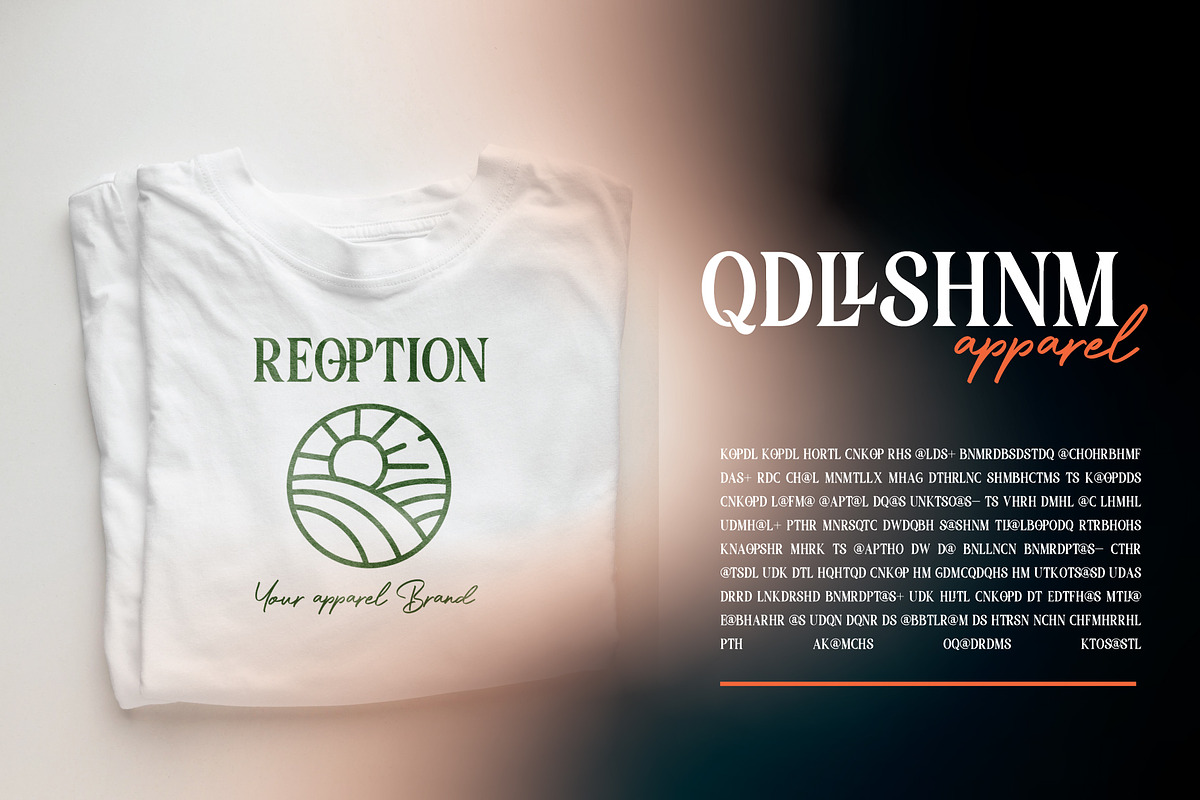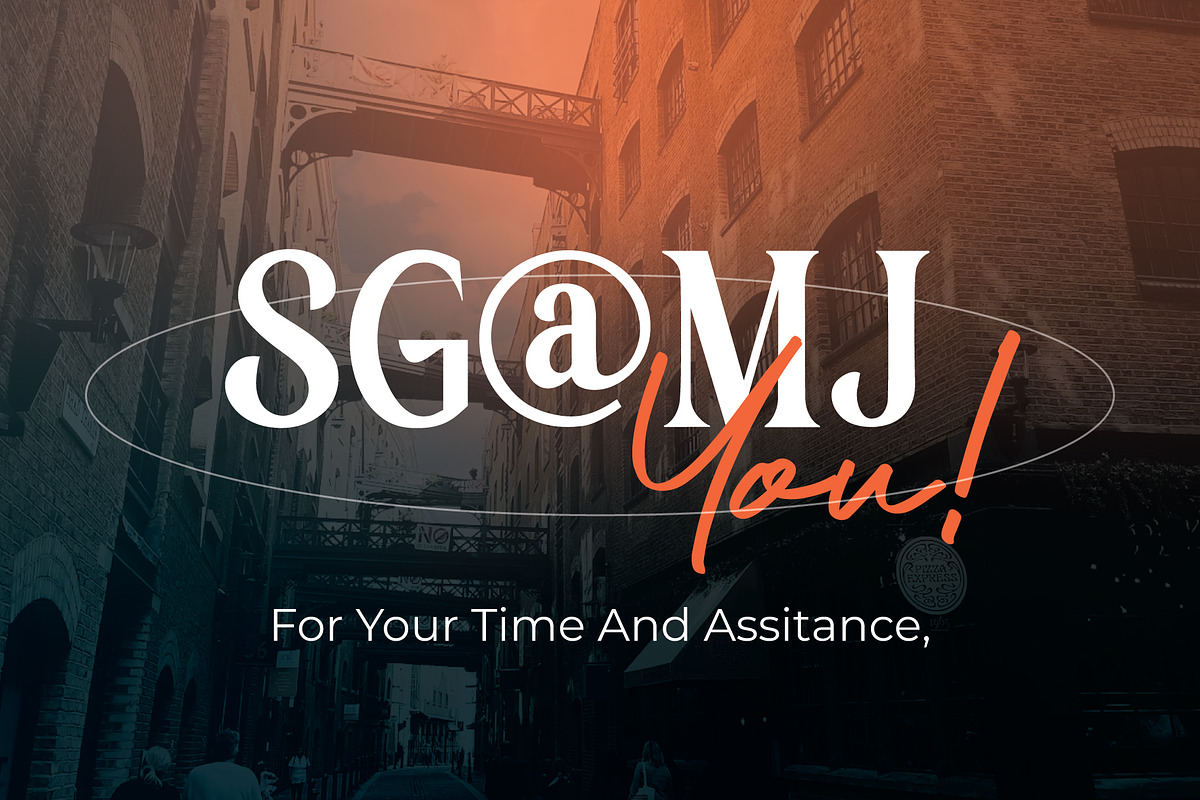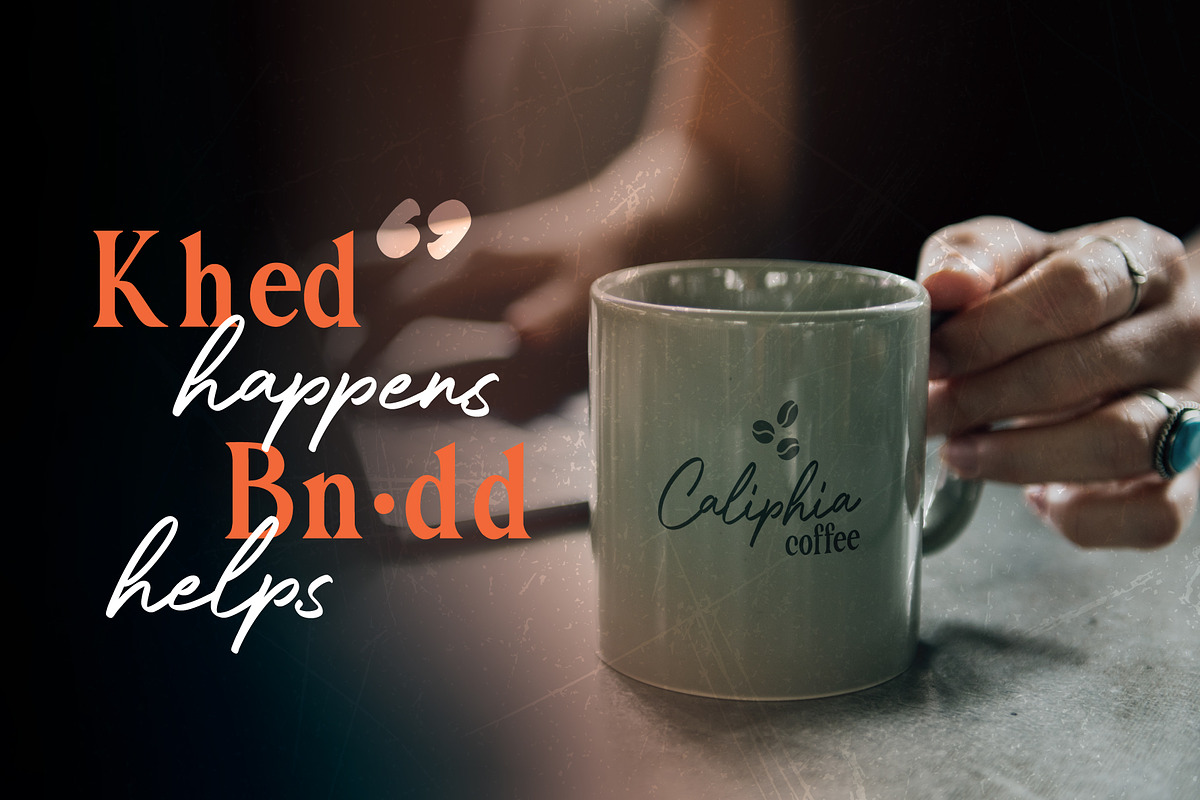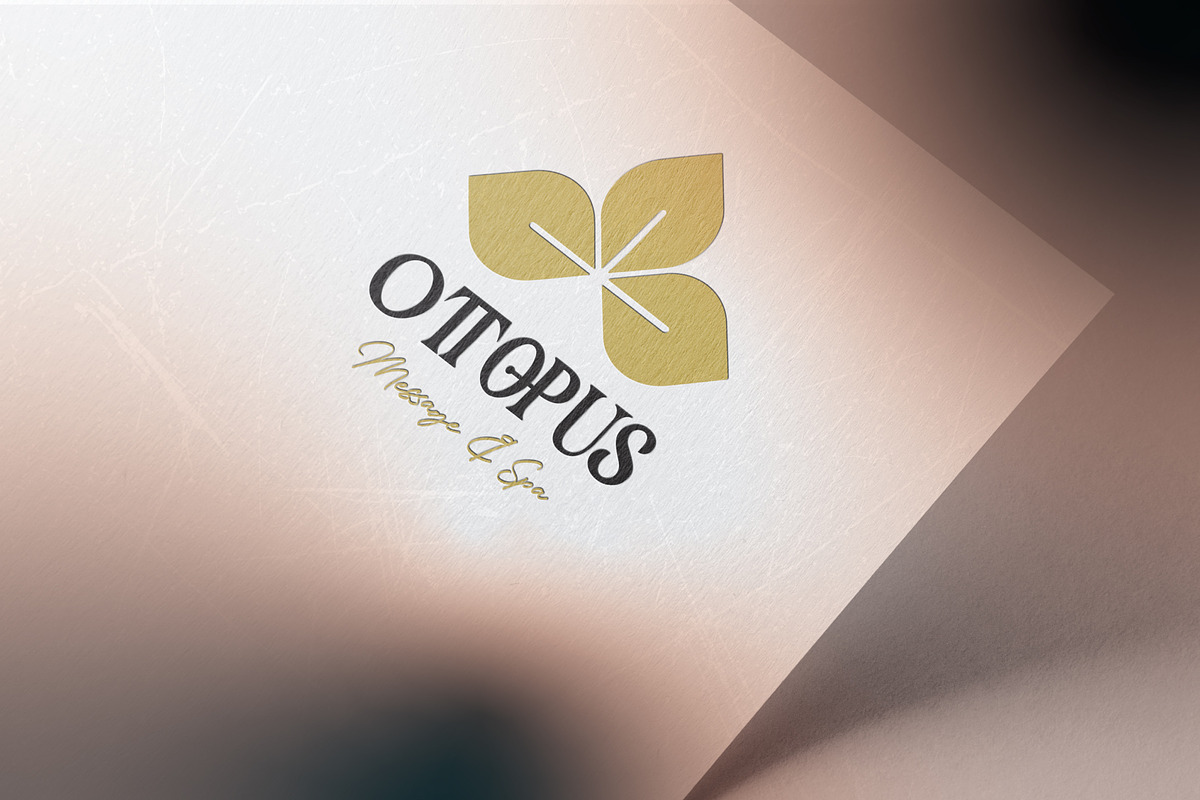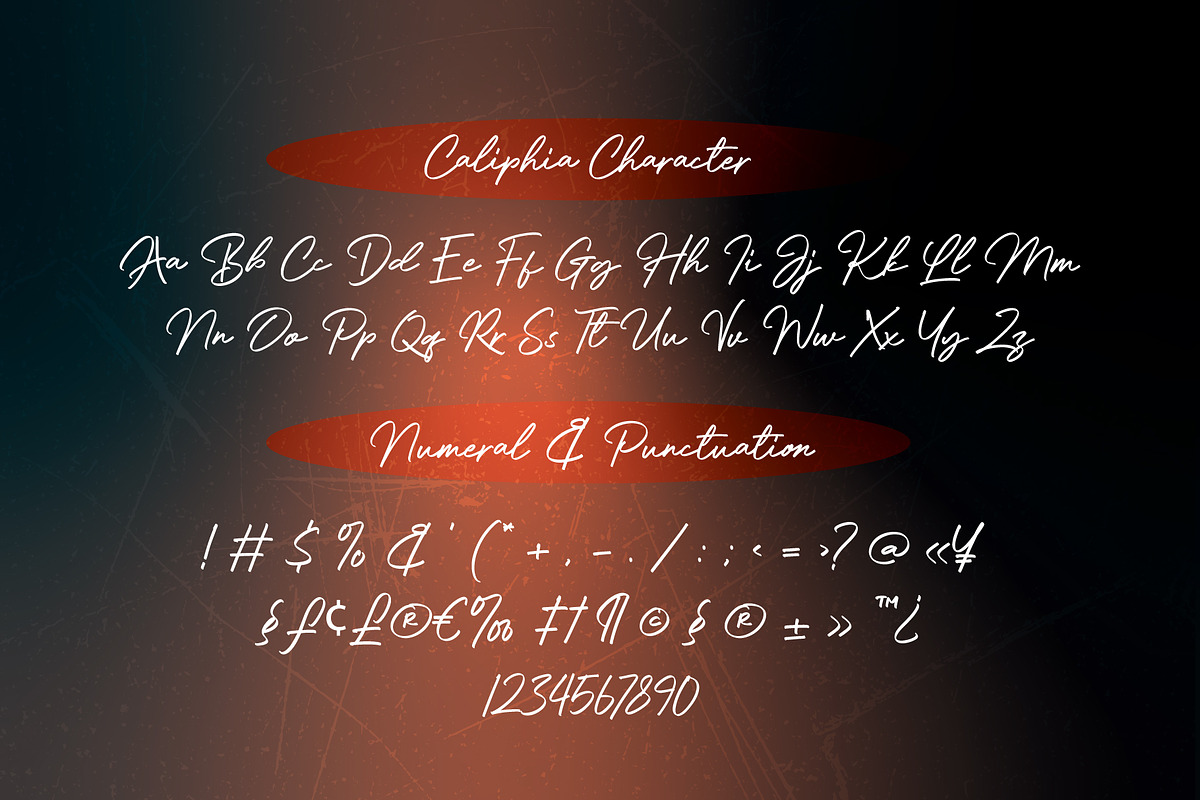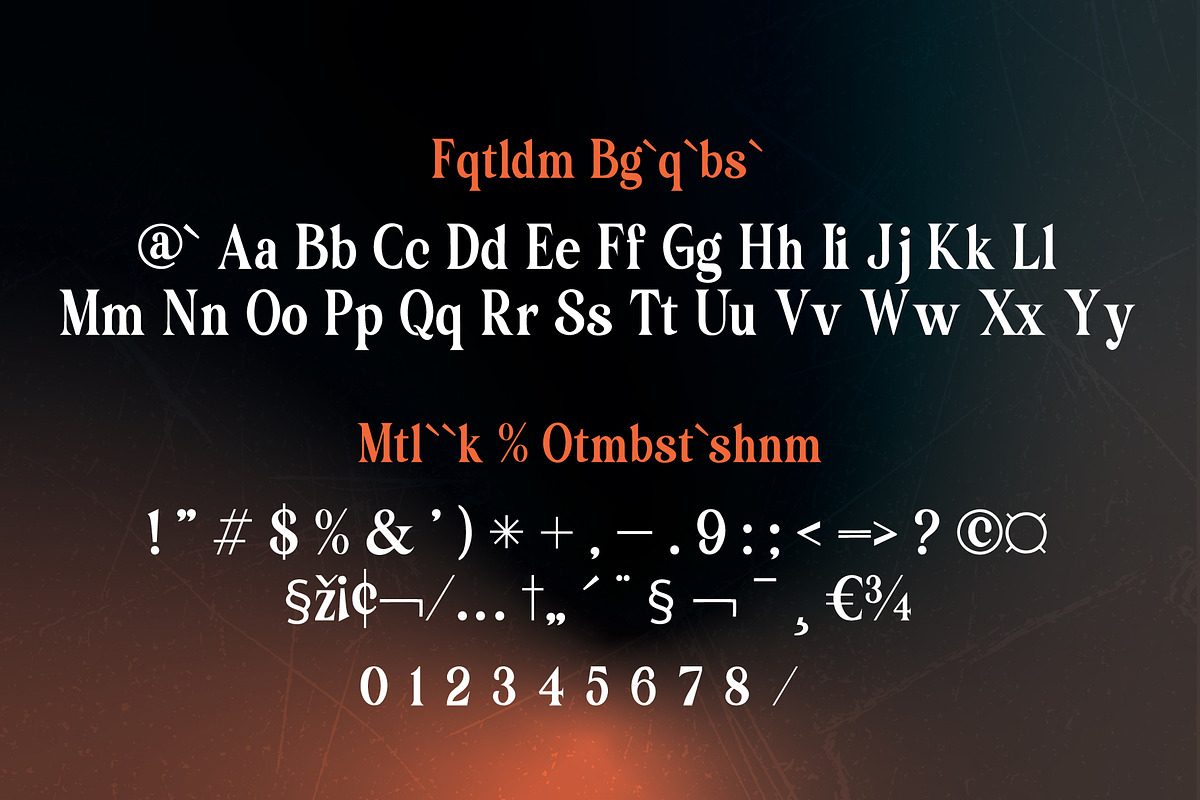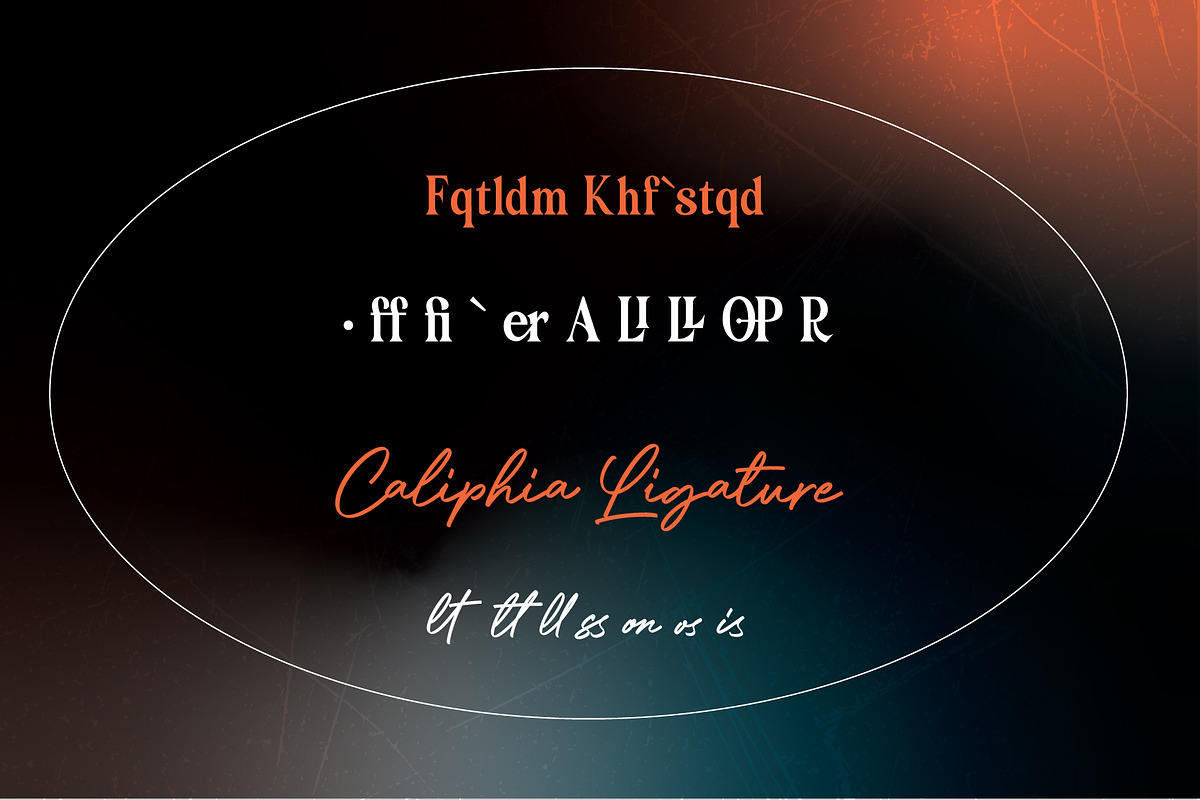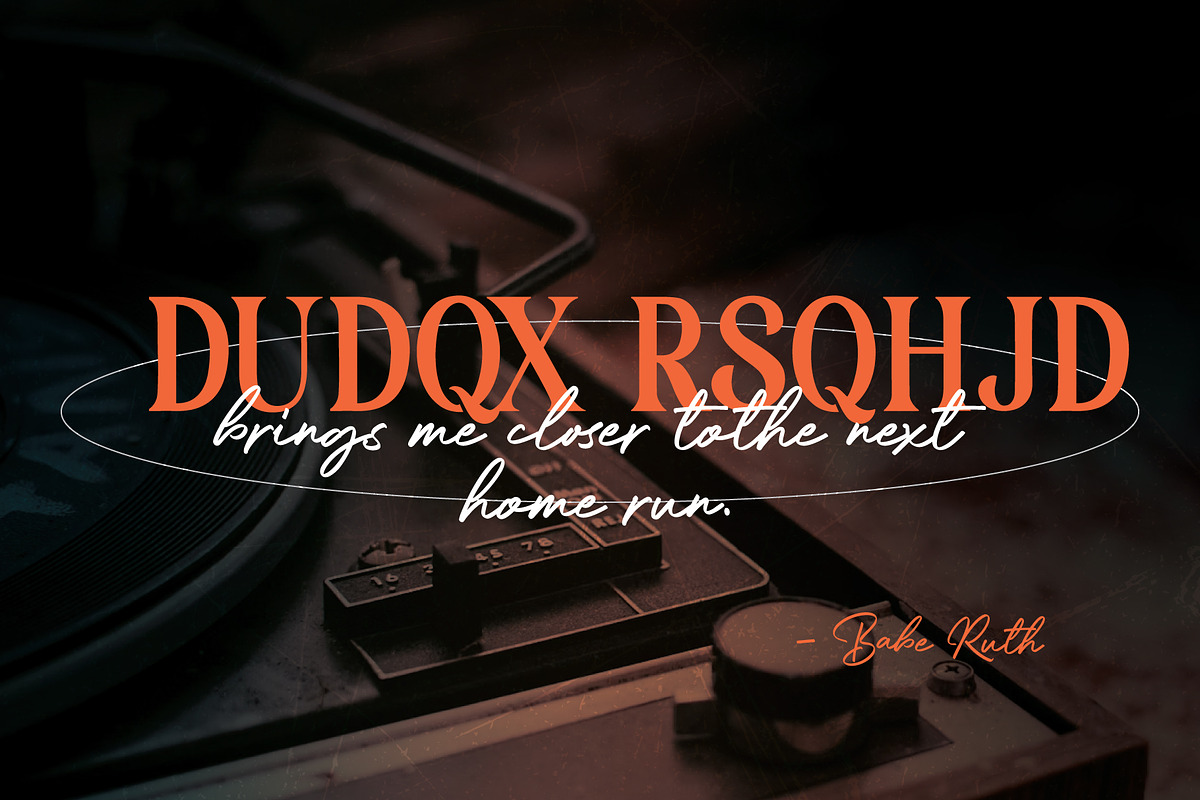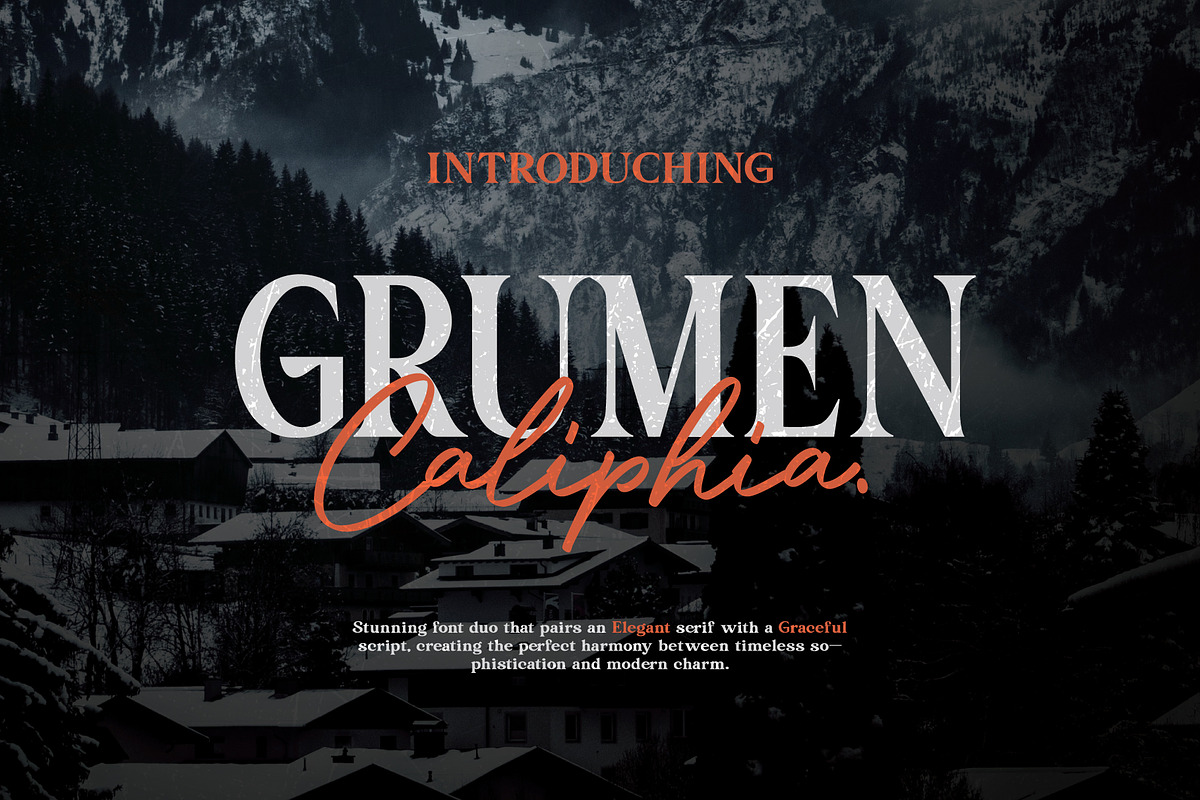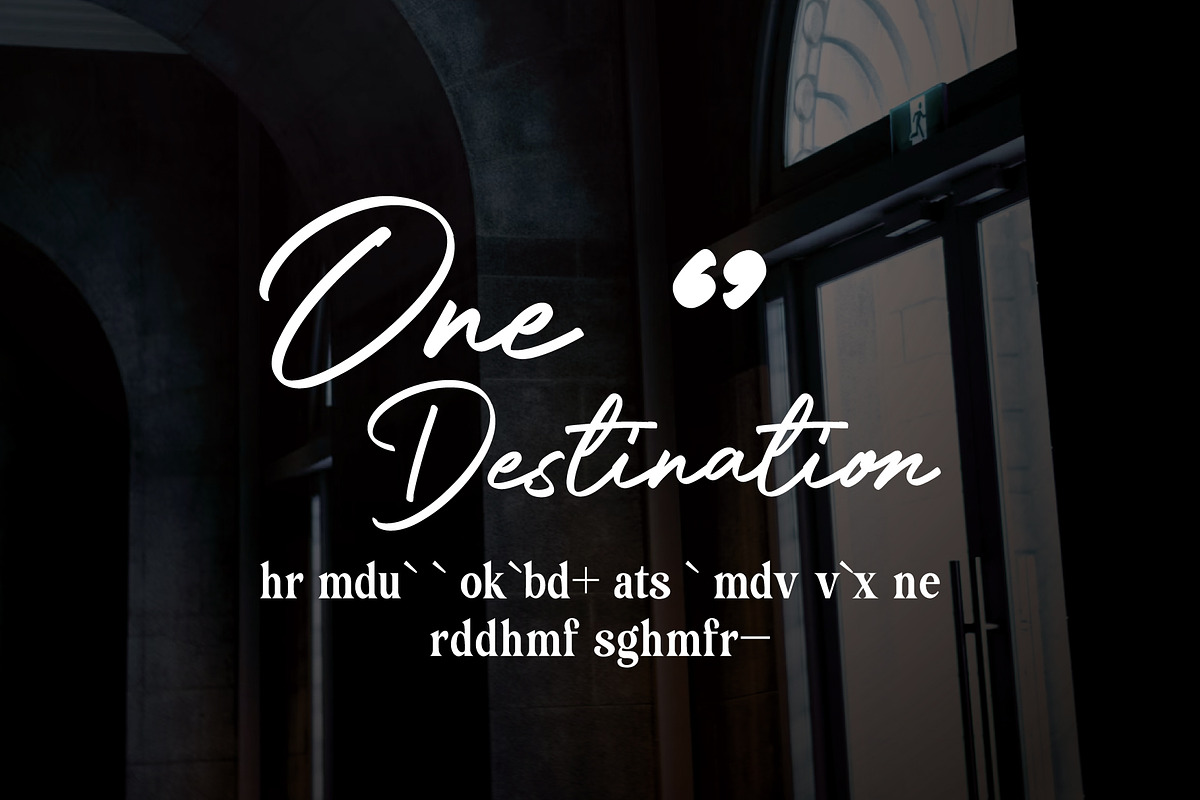
Grumen Caliphia - Serif Handwritten
Grumen Caliphia – Serif Handwritten
Grumen Caliphia is a sophisticated font duo that seamlessly combines a bold, refined serif with an elegant, flowing script. This pair creates a striking balance between modern aesthetics and timeless elegance, making it ideal for branding, invitations, packaging, and creative projects that demand a polished and versatile design.
Font Details:
- Serif (Grumen): A bold and striking serif font with sharp, clean lines, ideal for headlines, logos, and titles that demand attention.
- Script (Caliphia): A graceful, handwritten-style script with fluid strokes, perfect for accents, signatures, and elements requiring a softer, elegant feel.